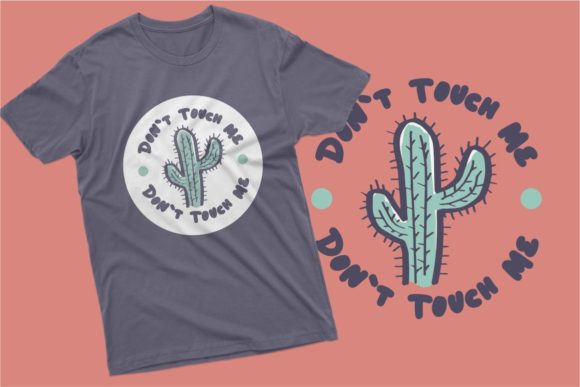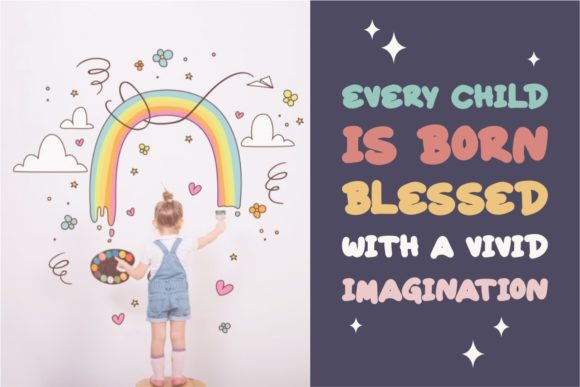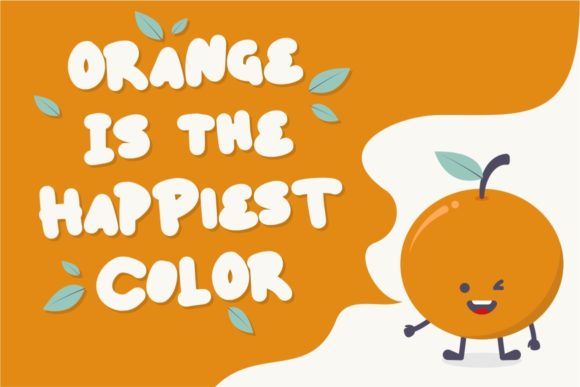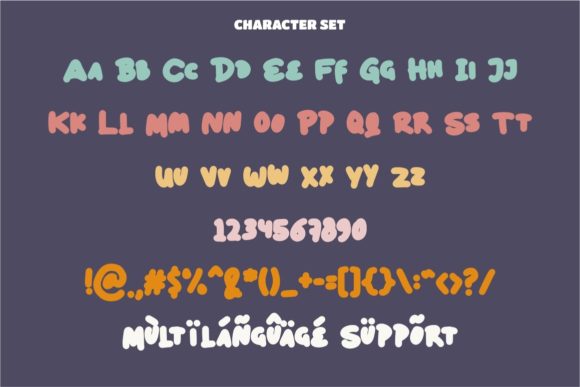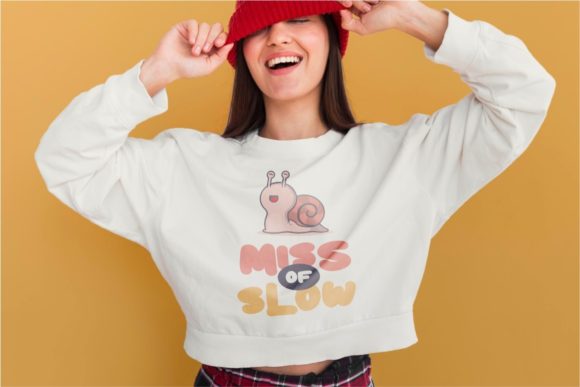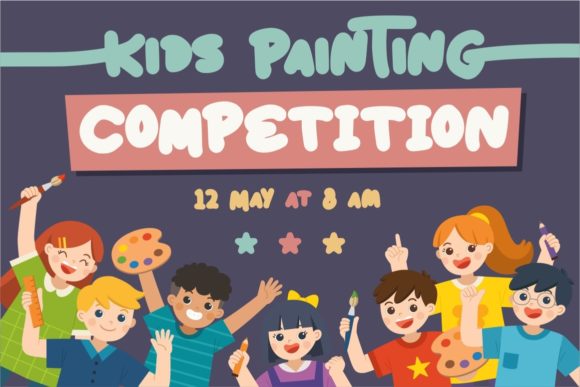
Unlock Your Creativity with the Ballsye Font
Have you ever stared at a blank canvas, a blank page, or a blank screen, waiting for that spark of inspiration to strike? You know, that moment when everything clicks and your creative ideas start flowing like a river? For designers, that moment is the holy grail of creative endeavors. And what if I told you that there’s a font that can help you get there faster?
Meet the Ballsye Font, a bold and fun display font that’s perfect for adding a touch of personality to your most creative ideas. With its PUA encoding, you’ll have access to all the glyphs and swashes you need to make your designs truly pop. Whether you’re working on a project for a client or just experimenting with new ideas, the Ballsye Font is the perfect companion to help bring your vision to life.
As a designer, you know how valuable it is to have the right tools at your disposal. And with the Ballsye Font, you’ll be able to tap into a world of creative possibilities that will take your designs to the next level.
Ballsye Font Key Features
- Font Size: 1,000 glyphs, including a wide range of characters and symbols.
- Resolution: Supports high-resolution displays with precise rendering at 300 DPI and above.
- Unique Characteristics: Unique ball-shaped design elements, creating a visually striking and modern appearance.
- Font Weight and Style: Offers a range of font weights, from light to bold, and multiple styles, including regular, italic, and condensed.
- Language Support: Supports multiple languages, including English, Spanish, French, German, and many others, with full Unicode coverage.
Ballsye Font Review
Overall, I have mixed feelings about the Ballsye font. On one hand, it has some great qualities that make it a great choice for certain designs ✨. Here are some of its strengths:
- Unique personality: Ballsye has a distinct, bold personality that can add some much-needed flair to a design.
- Wide range of applications: It can be used for headings, titles, or even as a display font in body text.
- Good legibility: Despite its bold appearance, Ballsye is still relatively easy to read, especially at larger sizes.
However, there are some limitations to consider ⚠️. Here are a few things that could be improved:
- Limited character set: Ballsye is a relatively new font, and its character set is still limited compared to more established fonts.
- May not be suitable for small text: While Ballsye is legible at larger sizes, it can be difficult to read at smaller sizes.
- May not be suitable for formal designs: Ballsye’s bold, playful personality may not be the best fit for more formal designs or corporate materials.
Overall, I would recommend Ballsye for designs that require a bold, eye-catching font. However, it may not be the best choice for more formal or delicate designs.
Ballsye Font Practical Application Guide
To get the most out of the Ballsye font, use it sparingly and in bold contexts, such as headlines or titles. Pair it with a clean, sans-serif font for body text to create a striking contrast.
The Ballsye font is ideal for:
- Editorials and creative writing